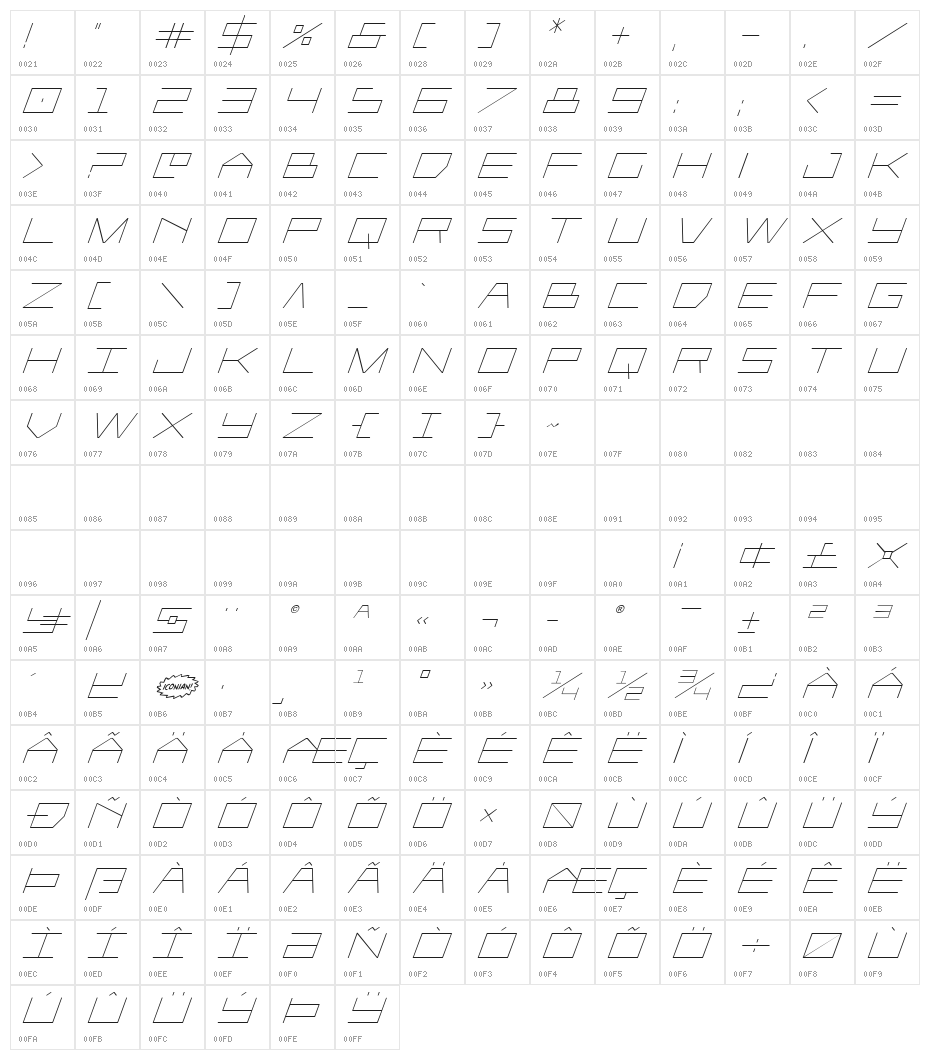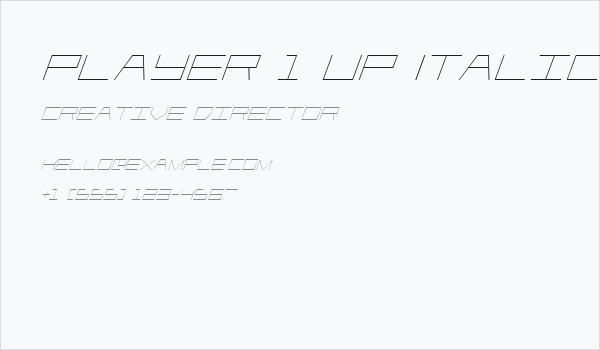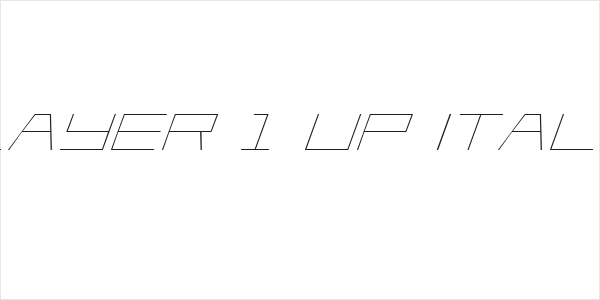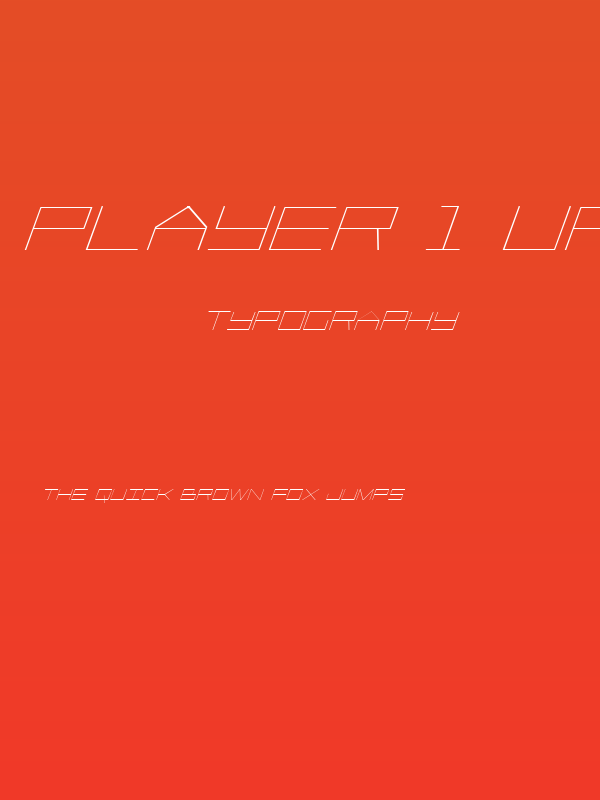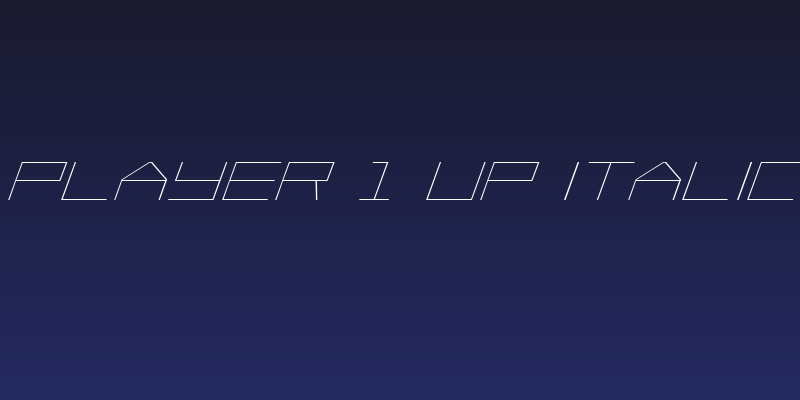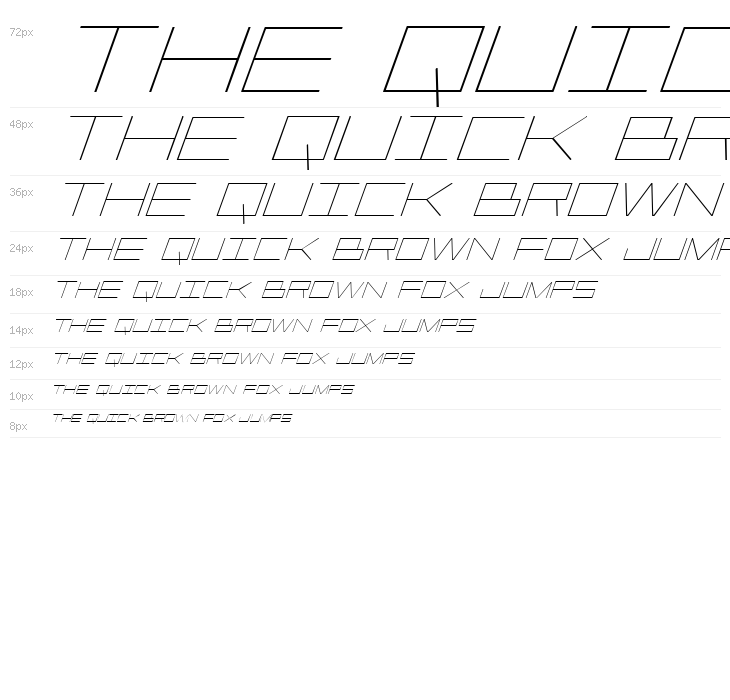
Player 1 Up Italic Font
Player 1 Up Italic Description
This font features a futuristic and angular design, characterized by its sharp edges and geometric forms. The letters are constructed with straight lines and acute angles, giving it a digital and modern appearance. The italic style adds a dynamic and forward-leaning aspect, enhancing its sense of motion and energy. The uppercase and lowercase letters maintain a consistent style, with a uniform stroke width that contributes to its sleek and streamlined look. The numerals and special characters follow the same design principles, ensuring a cohesive visual identity across all glyphs.